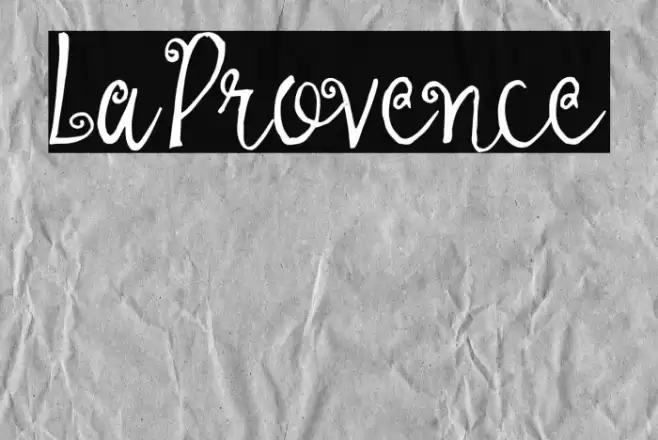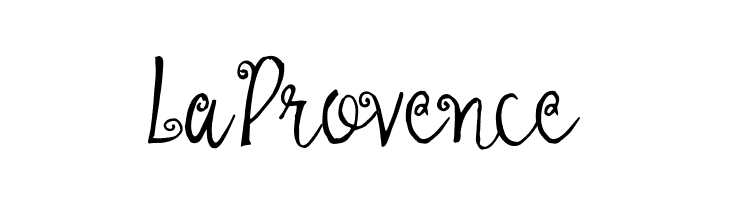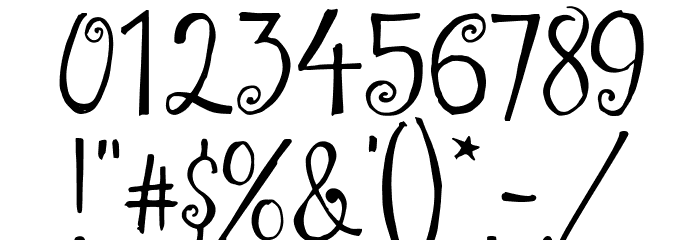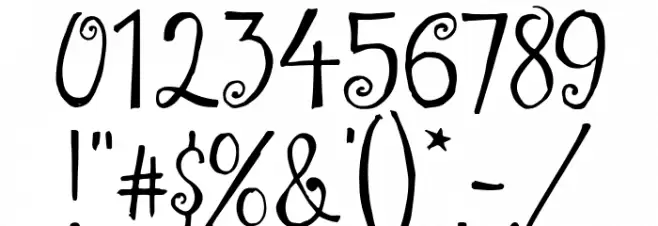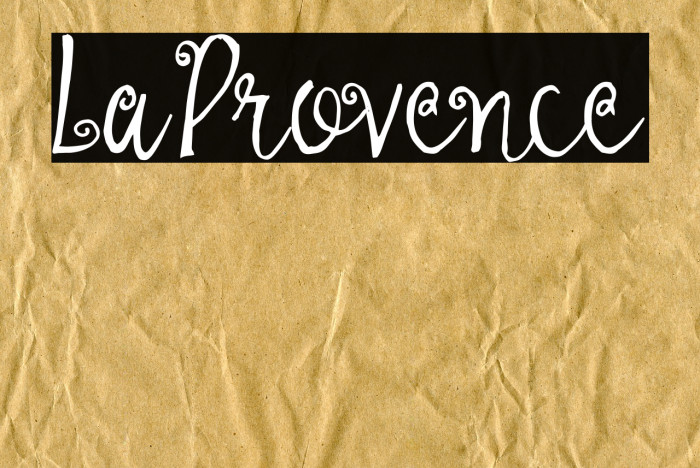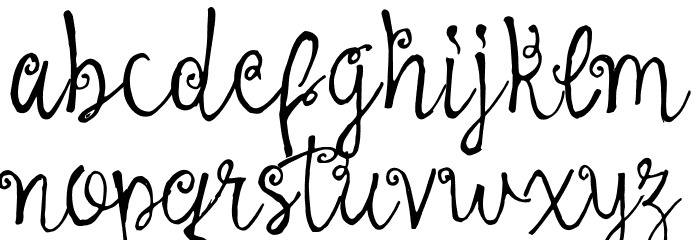
LaProvence Font
LaProvence Description
This font features a playful and whimsical design, characterized by its curly and swirly elements. The letters have a hand-drawn, artistic feel, with varying stroke widths that add to its charm. The uppercase letters are bold and prominent, while the lowercase letters maintain a consistent style with a slightly more delicate touch. Numbers and special characters follow the same playful theme, making the font versatile for creative projects. The overall appearance is lively and engaging, perfect for adding a touch of personality to any design.
A playful, whimsical font with curly, hand-drawn elements from Curly fonts.
- Proposed Projects: Ideal for greeting cards, children's books, playful branding, and artistic posters.